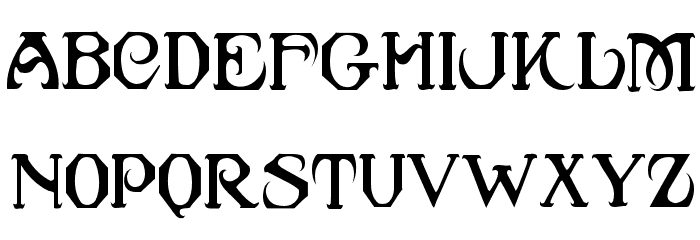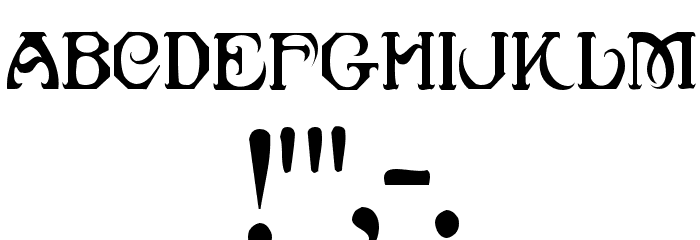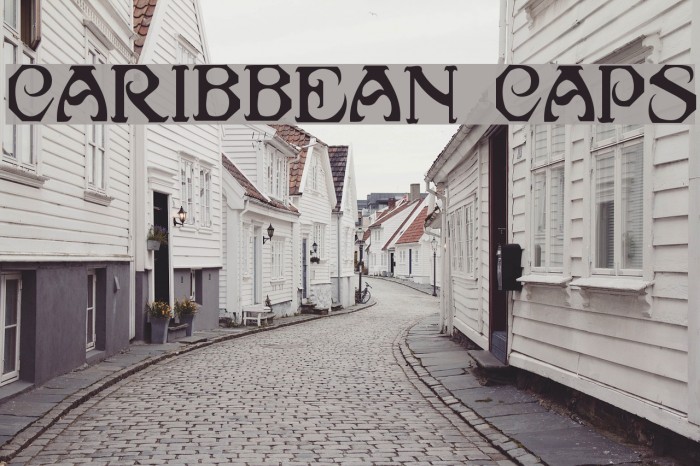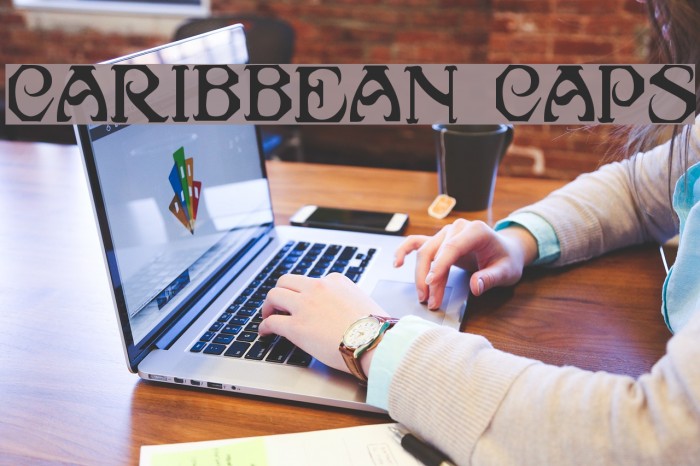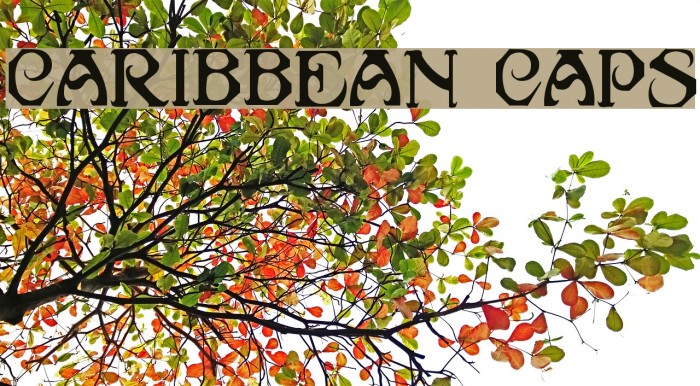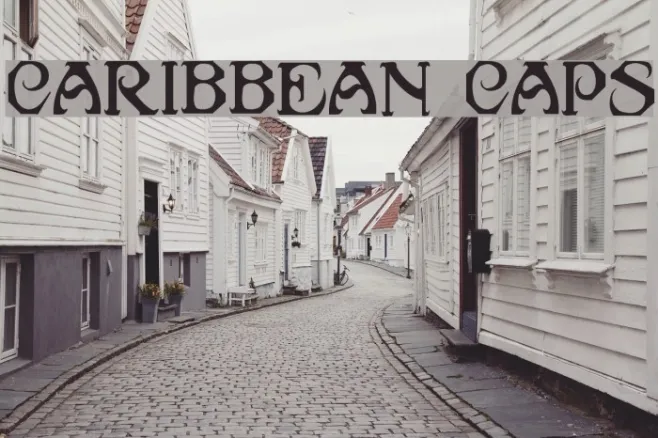
Caribbean Caps Font
This font features a bold and decorative style with a distinctively ornate appearance. The characters are designed with intricate curves and flourishes, giving them a unique and eye-catching look. The uppercase letters are particularly elaborate, with each character showcasing a blend of sharp angles and smooth curves. The font exudes a sense of elegance and sophistication, making it ideal for projects that require a touch of flair and creativity. Its boldness ensures that it stands out, while the decorative elements add a layer of complexity and visual interest.
A bold, decorative font with intricate curves and flourishes.
- Proposed Projects: Ideal for use in branding, posters, invitations, and any design project that requires a bold and decorative touch.